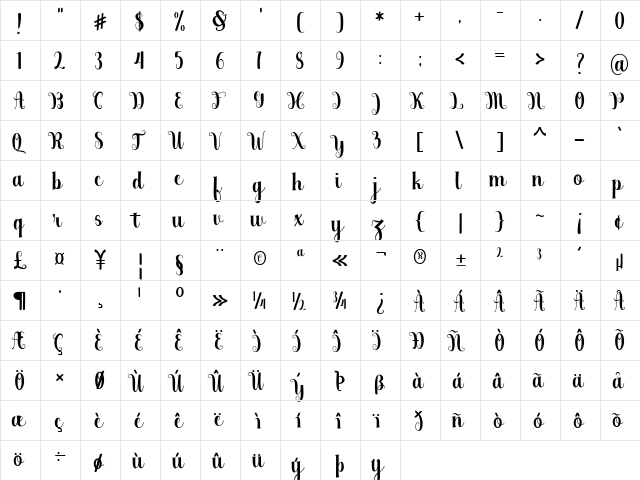
Berkarya Regular
| Foundry | Cropstudio |
Design Context for Berkarya Typeface
Berkarya is a composed and adaptable typeface that performs quietly and consistently across a wide range of design contexts.